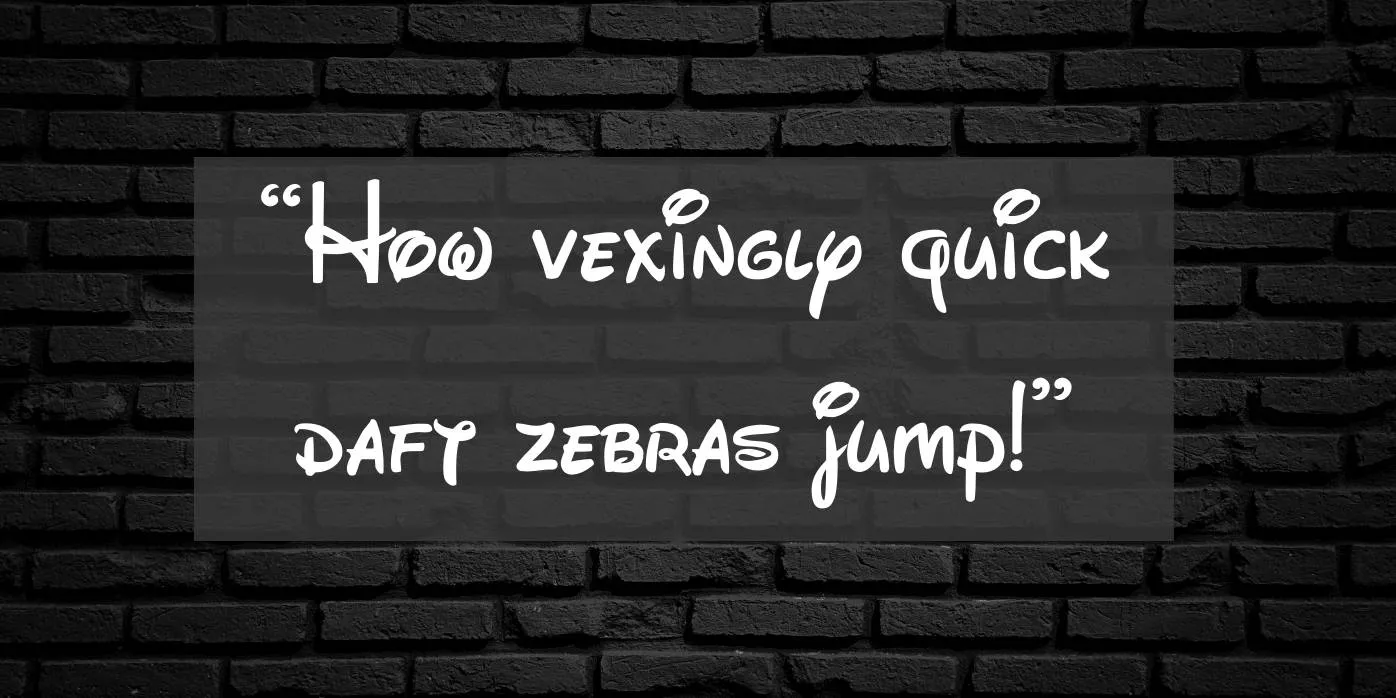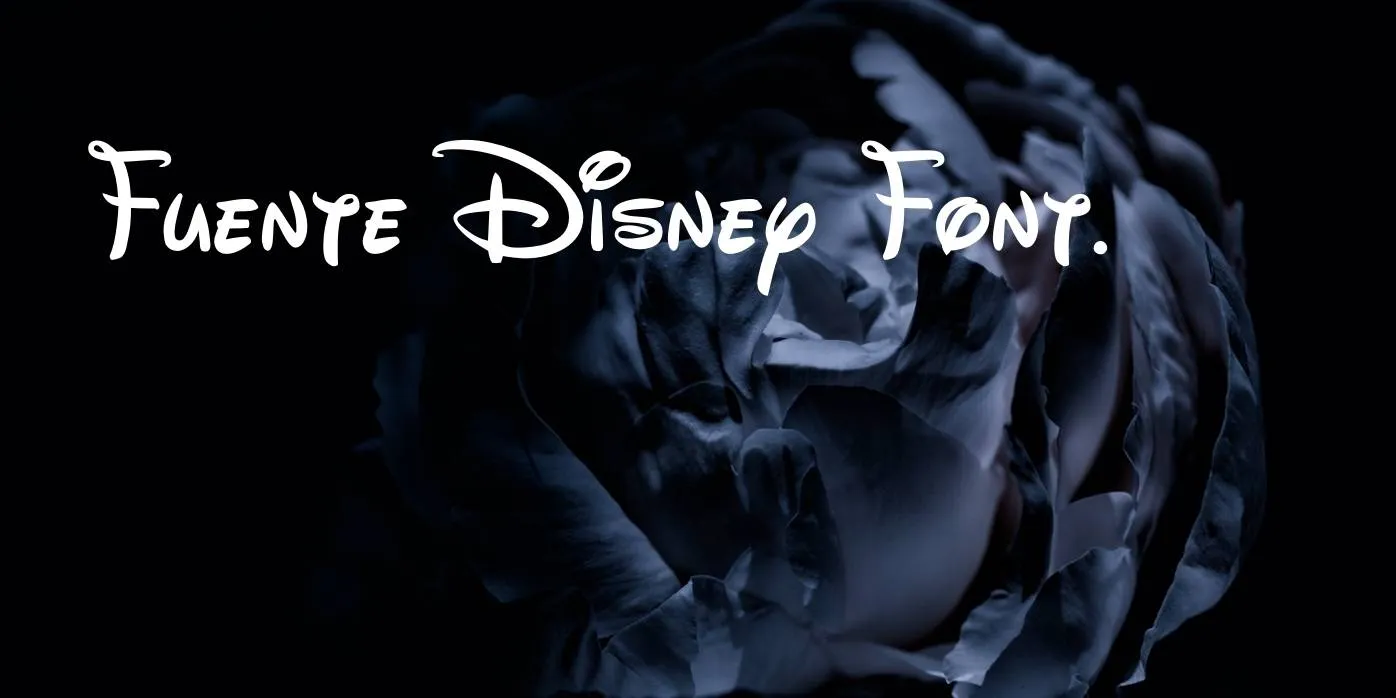
Fuente Disney Font
Here we are introducing a most classic and tremendous font family that is known by the name  Fuente Disney Font. This amazing font family belongs to the Script typeface. This marvelous fort was developed by very famous designer Justin Callaghan. This classic font family was used for various types of interesting Disney movies.
The main theme of this font is to design the logo and give titles to movies. This classy font family comes in three famous and outstanding styles and also contains many special weights. These special weights give an attractive and stylish look to many of your famous designs. Some of its famous and commonly used characters are given swashes, great ligatures, symbols, stylistic alternates, and so on.
Allura Font is one of the most similar fonts to this staggering typeface. Another popular thing about this font is that is available in one more famous character like Mickey Mouse. Many designers show their first choice to use such type of cozy and cute font for their projects. If it is your desire to get massive fame in a lot of your interesting projects you need to download this classy and soft-looking font for all of your projects.